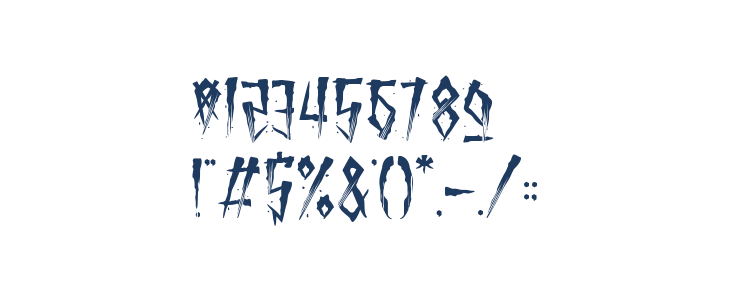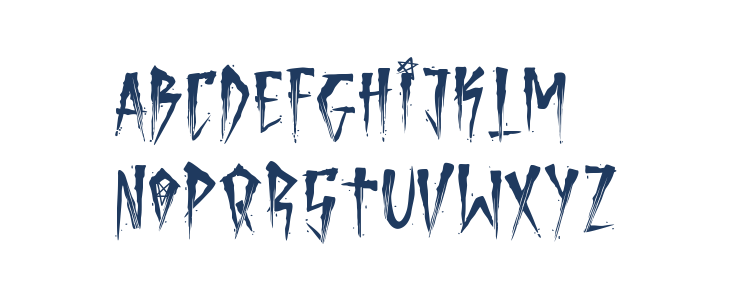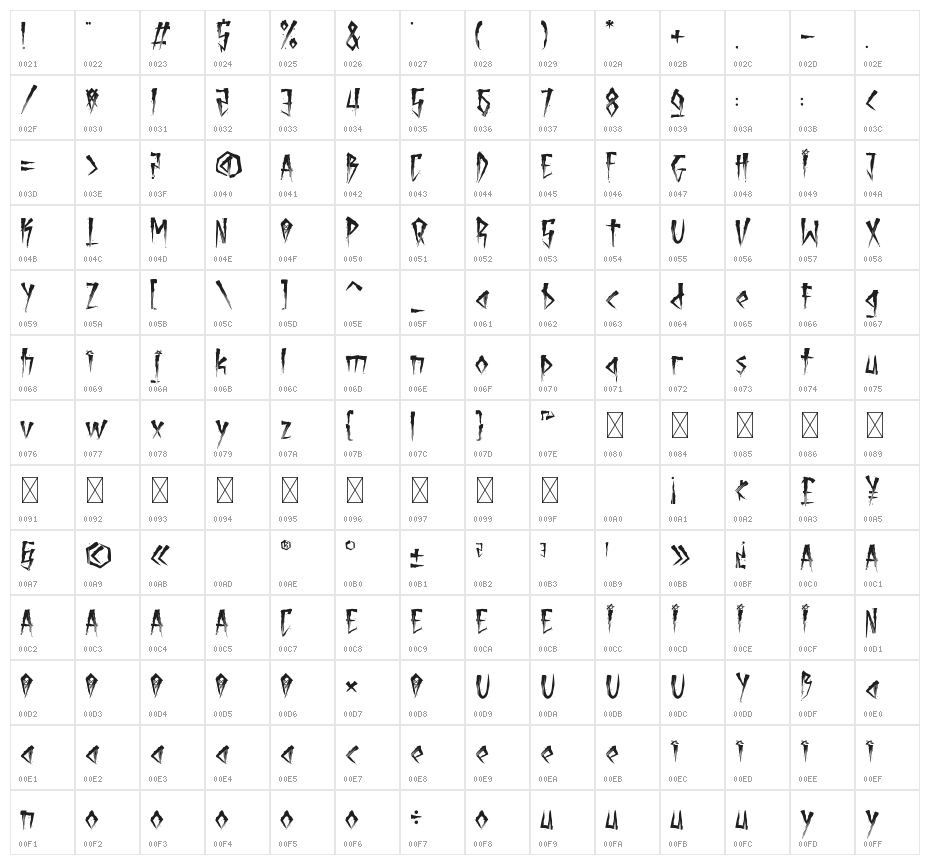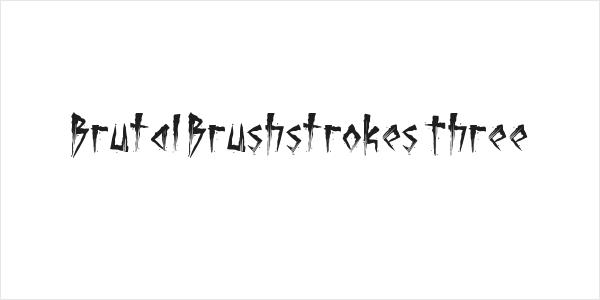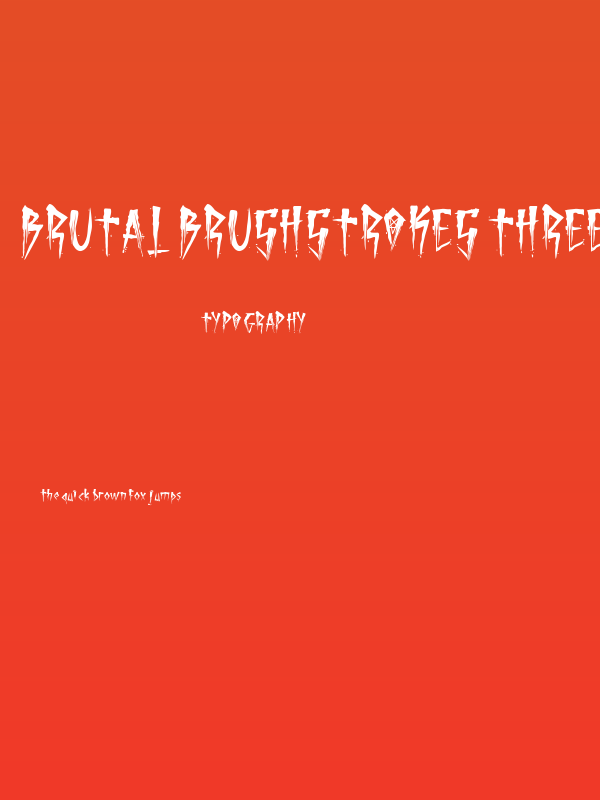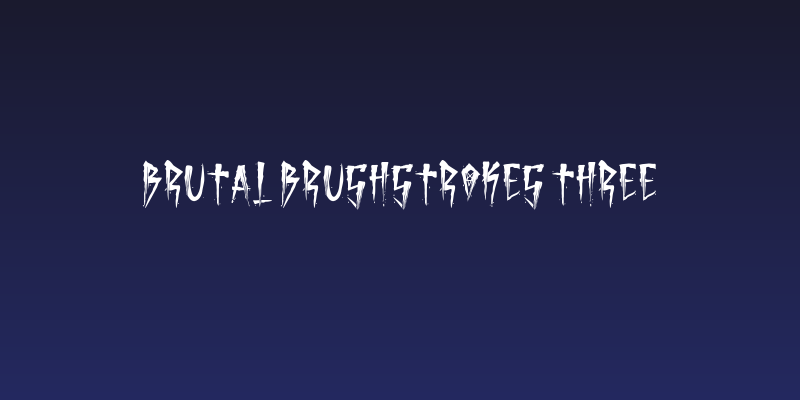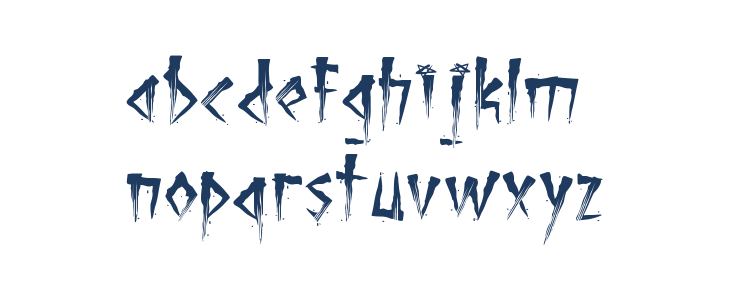
Brutal Brushstrokes Three Font
Brutal Brushstrokes Three Description
A highly expressive, jagged brushstroke font with sharp, irregular edges and a distressed, hand-painted appearance. The characters feature dramatic vertical strokes, uneven baselines, and splattered ink effects, evoking a raw, rebellious energy.
| Overall Style | Decorative, Grunge, Expressive |
| Use Case | Headlines, Posters, Logos, Event Promotions |
| Proposed Projects | Album covers, horror movie posters, extreme sports branding, Halloween event flyers, rebellious apparel designs. |